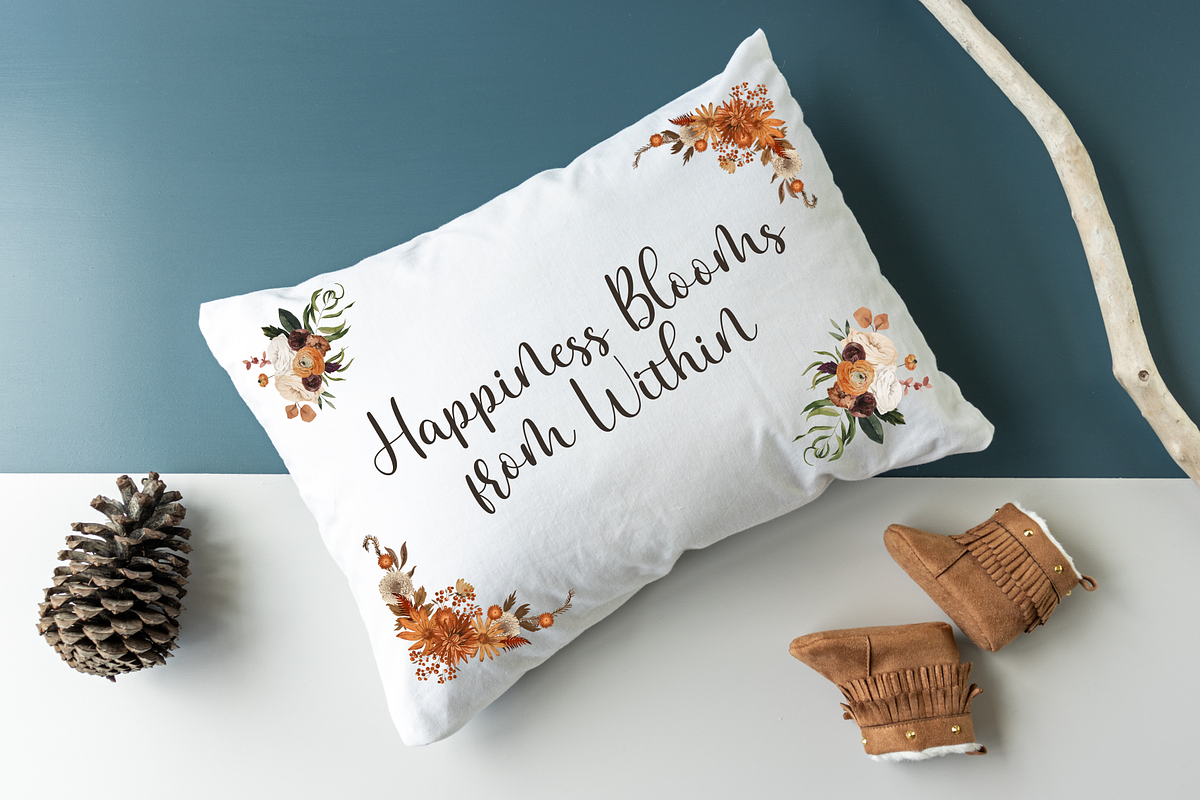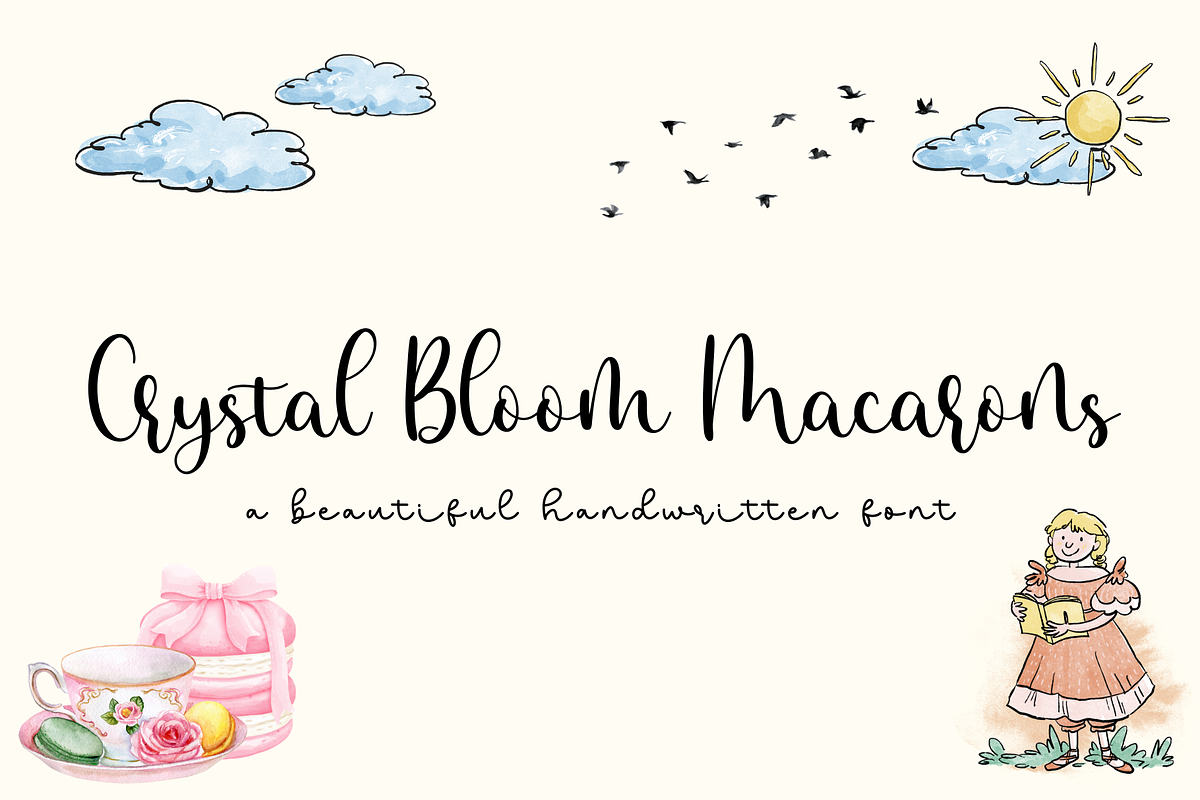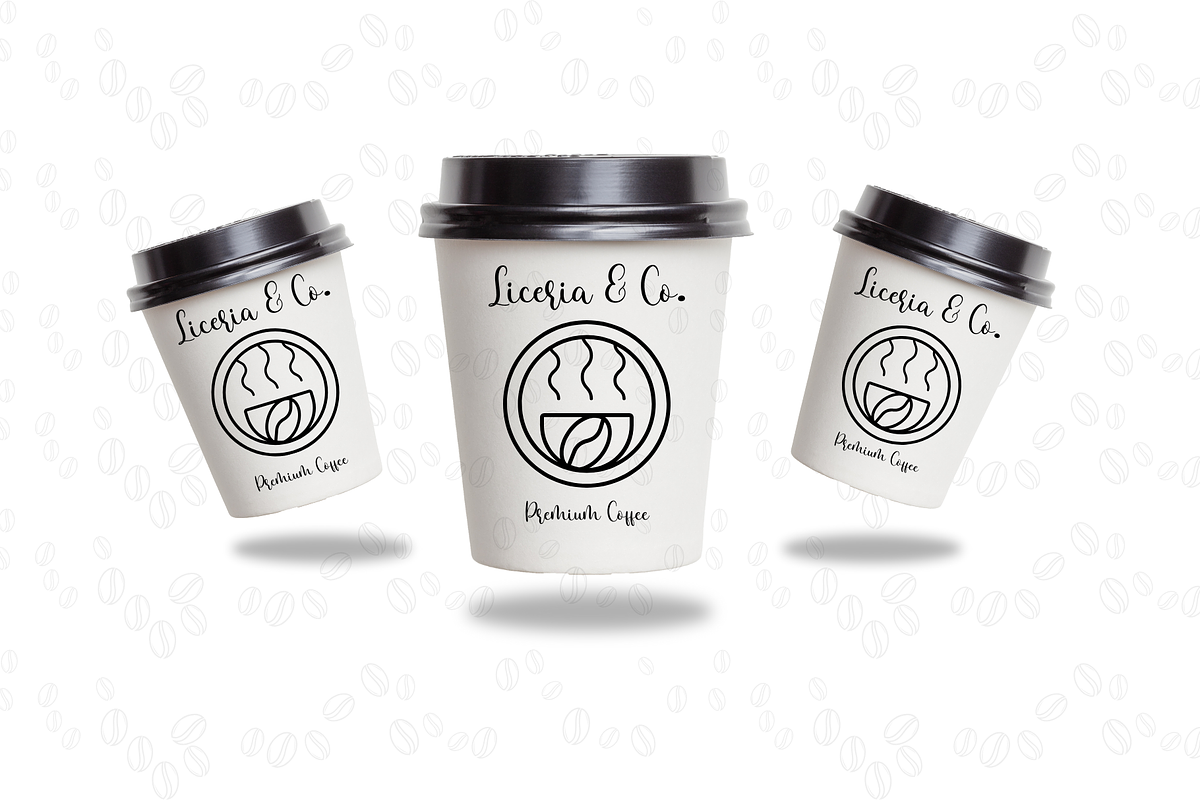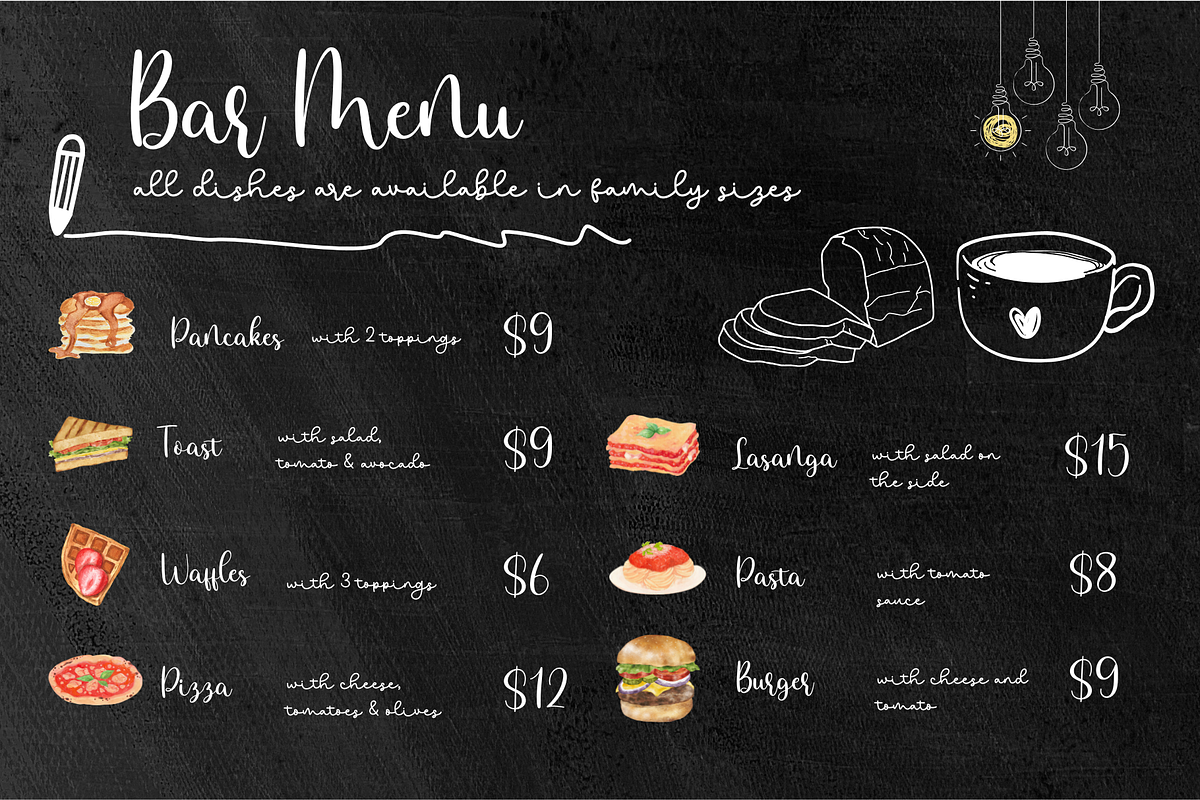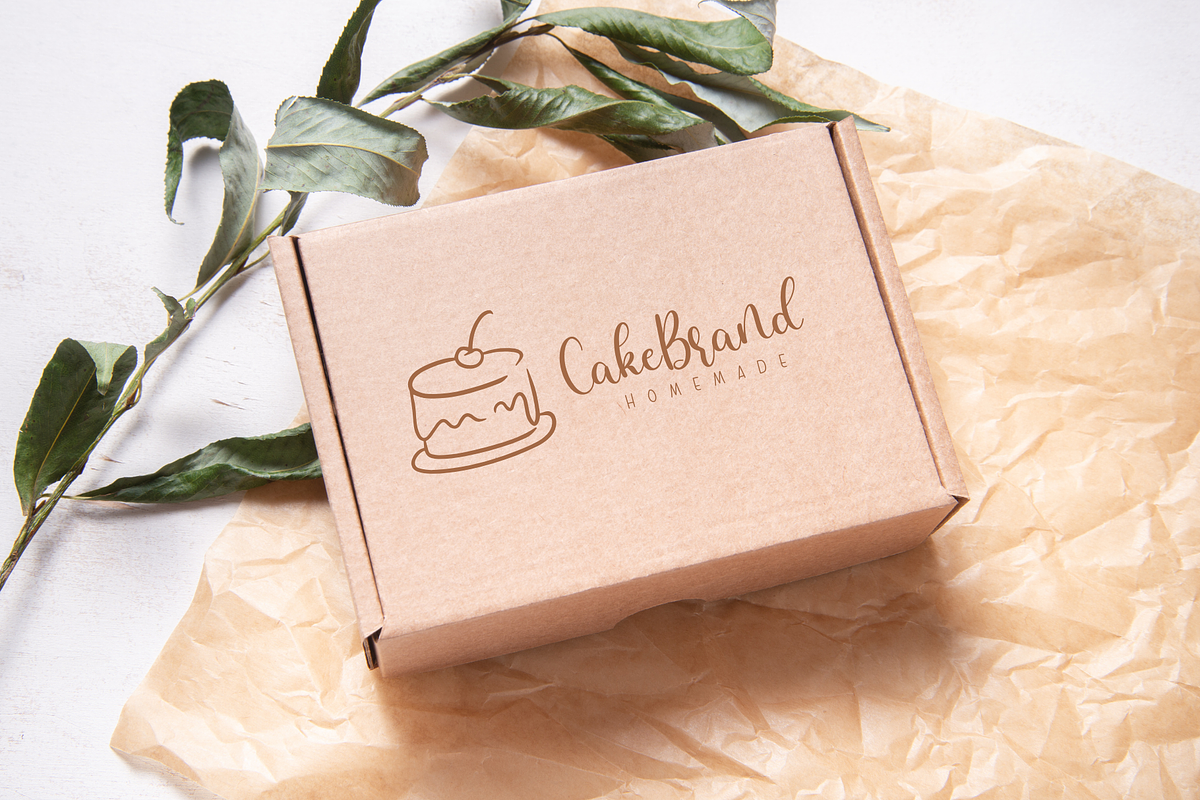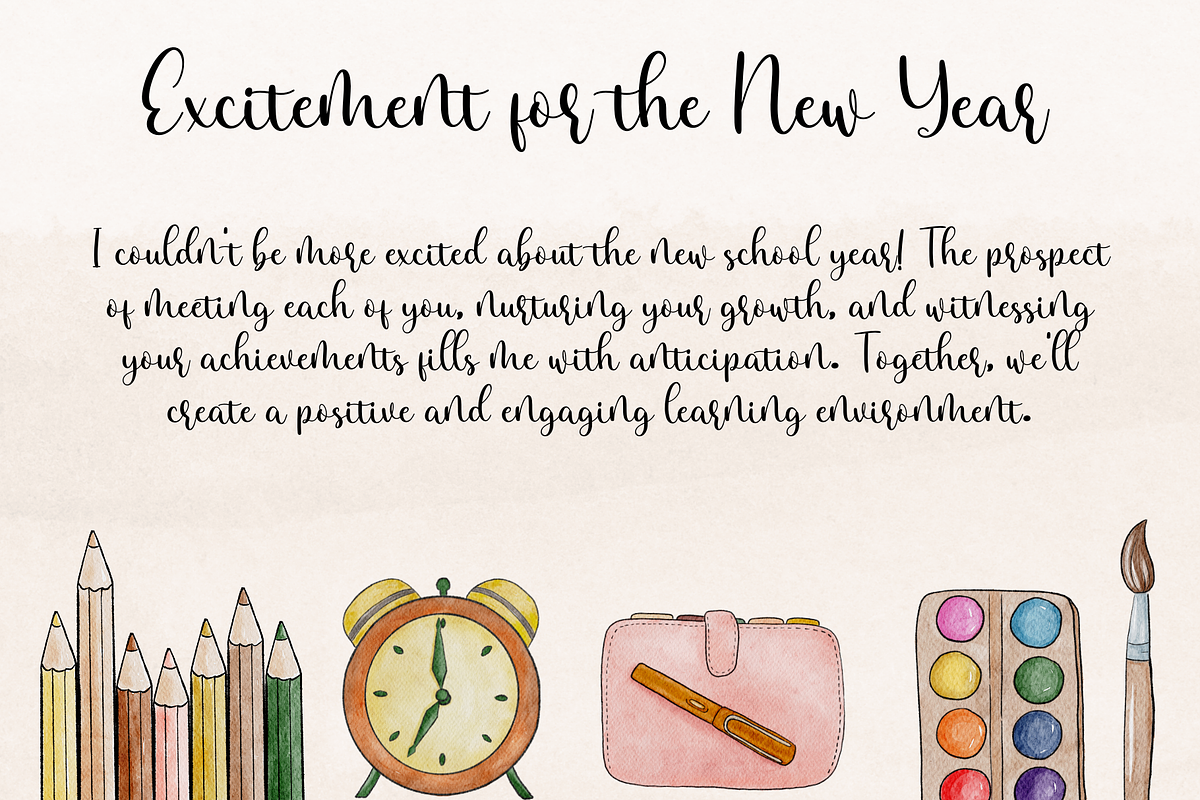
Crystal Bloom Macarons
Introducing a special creative product designed with love, just for you. Our fonts are crafted to provide a remarkable experience that will leave a lasting impression.
This script font combines elegance and modernity, featuring artistic strokes that exude sophistication and charm. Whether you’re designing for formal events or adding a personal touch to your projects, this typeface is versatile and inspiring.
Perfect for bringing your creative ideas to life, this font seamlessly adapts to various applications, such as:
- Invitation cards
- Letterheads
- Website logos
- Social media posts
- Banners and advertisements
- Brochures and packaging designs Leather goods and any other products requiring stylish typography
Using this font elevates your designs with a luxurious, elegant, and captivating appeal. We invite you to try it and see the difference it makes.
- Stylistic alternatives for a natural, handwritten look